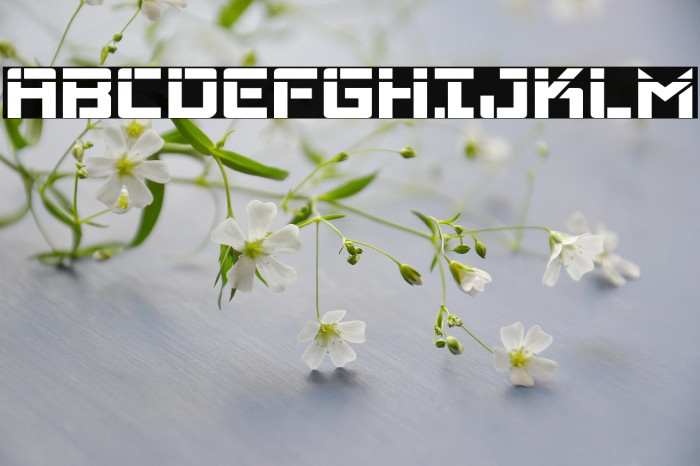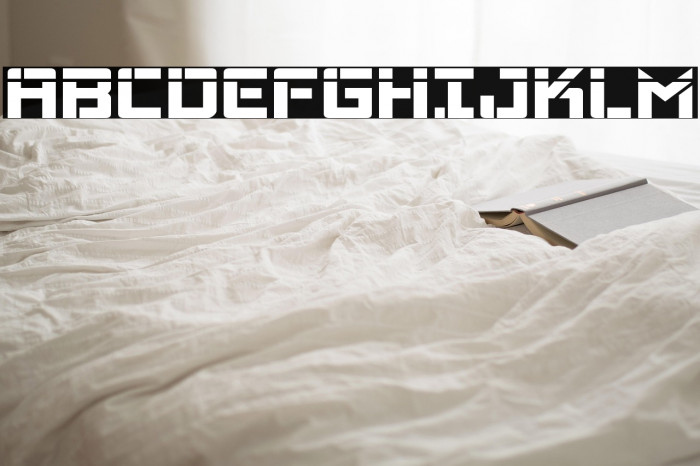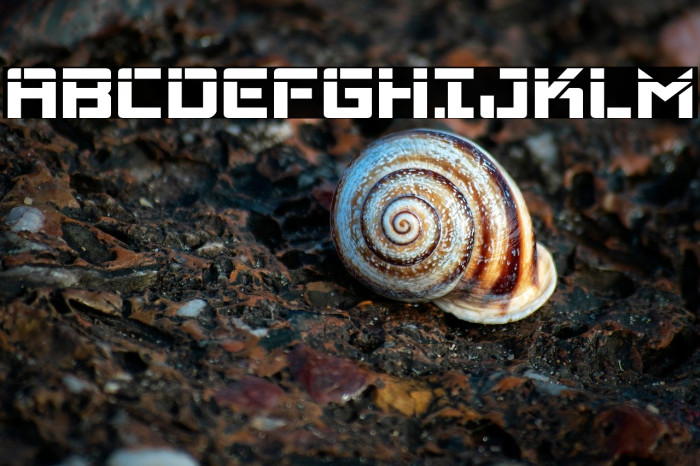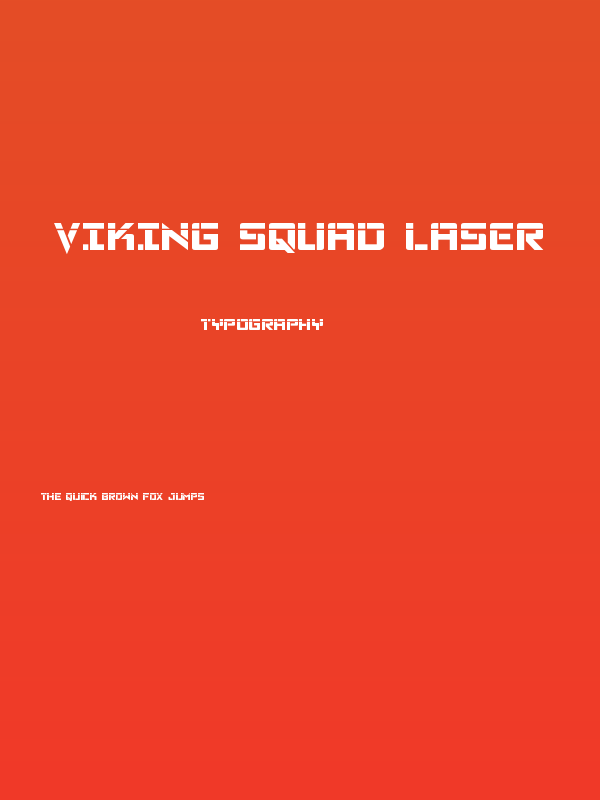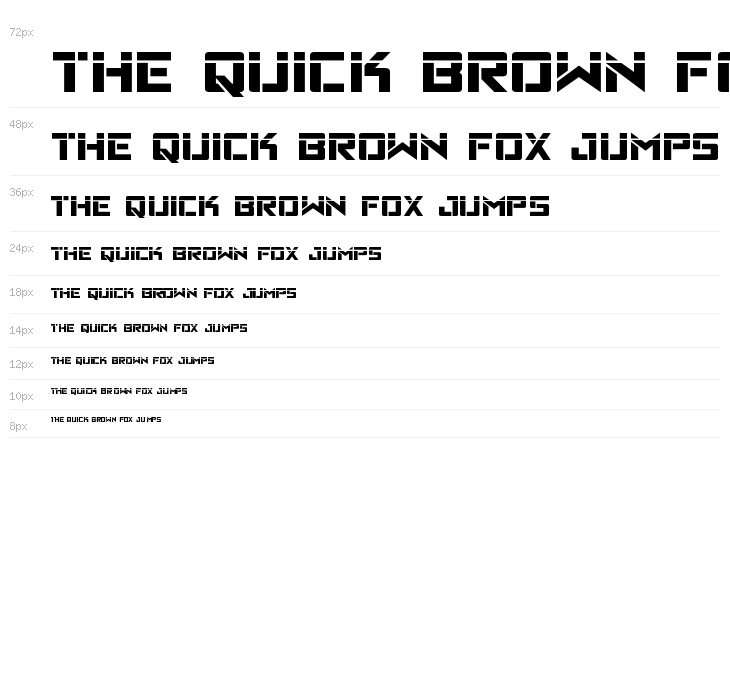
Viking Squad Laser Font
Viking Squad Laser Description
This font features a bold, futuristic design with sharp angles and geometric shapes. The characters are constructed with a blocky, stencil-like appearance, giving it a strong and commanding presence. The uppercase letters are particularly striking, with a consistent height and width that create a uniform look. The lowercase letters maintain the same bold style, ensuring readability while retaining the font's distinctive aesthetic. Numbers and special characters are equally bold and geometric, fitting seamlessly with the overall design. This font is ideal for projects that require a modern, edgy feel.
| Proposed Projects | Ideal for sci-fi themed designs, video game graphics, posters, and branding that requires a modern, edgy look. |